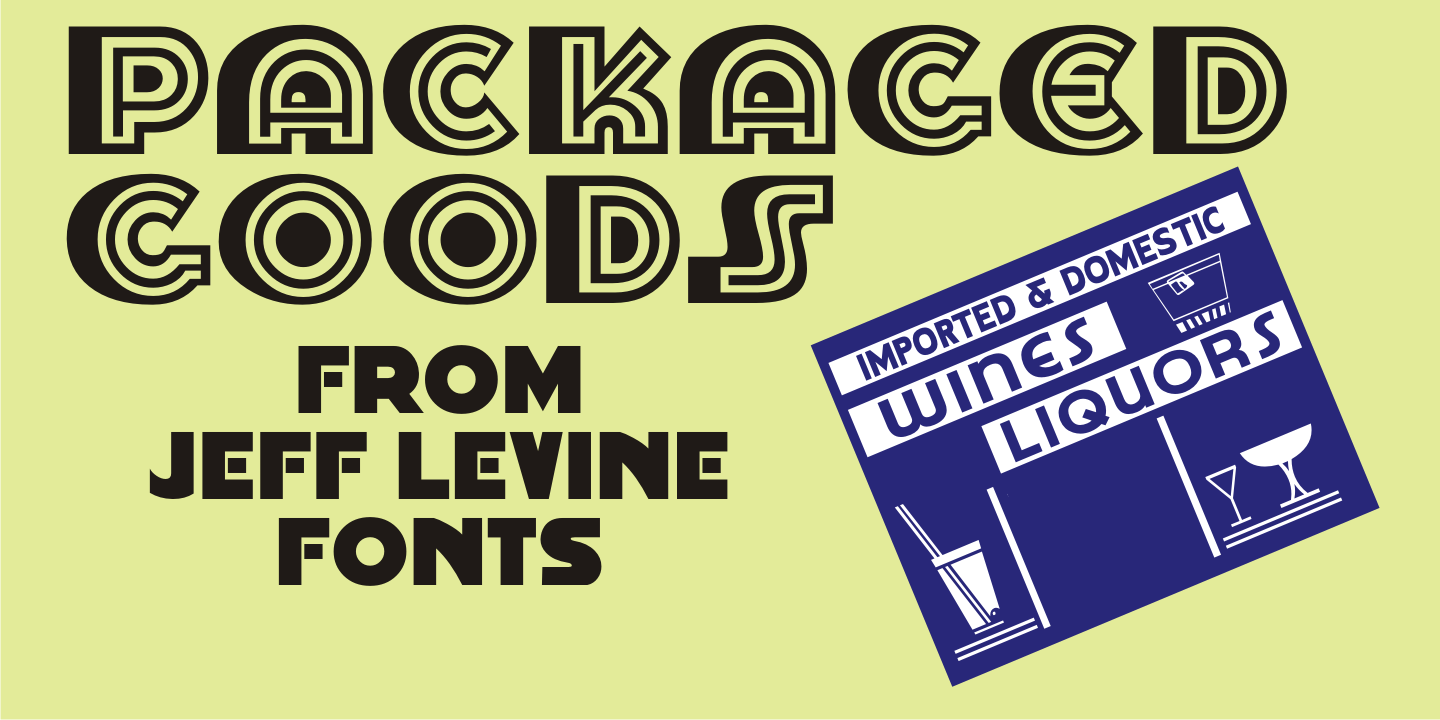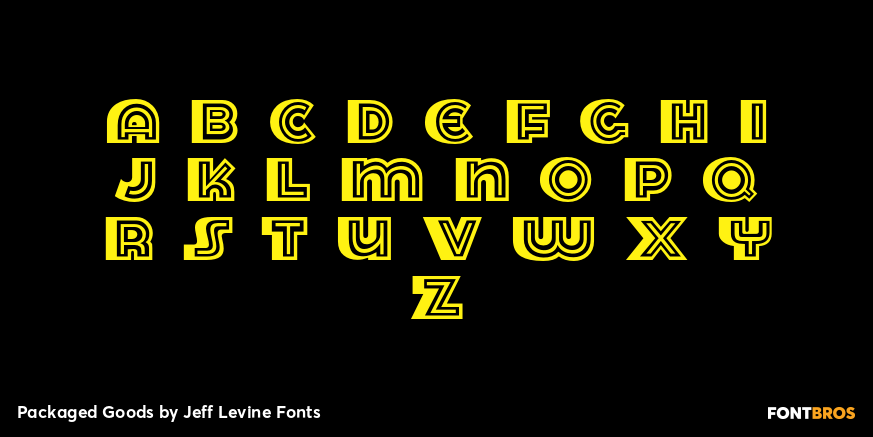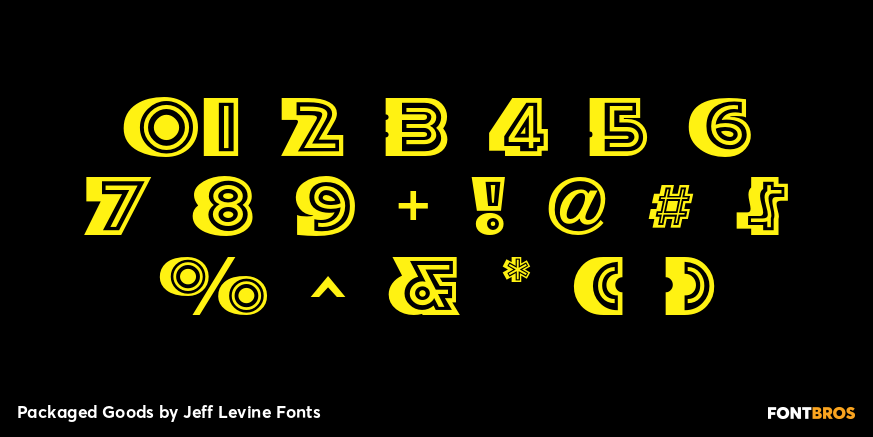
Packaged Goods
A vintage matchbook advertising the New York Liquor Mart – oddly enough, located in Chicago, Illinois – featured a pen and ink line drawing of the store's exterior.
The Art Deco lettering on the mansard was portrayed with a straight left shadow (as opposed to drop cast or extruded), making for an interesting multi-line typeface design.
This is now digitally available as Packaged Goods JNL.